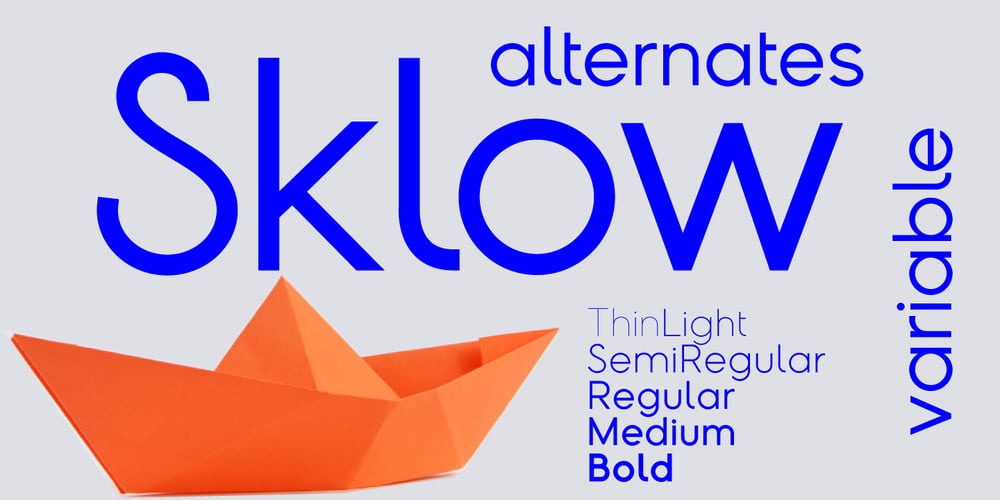
Sklow
Sklow font
Sklow Font Family was designed by Andrii Shevchyk and published by Andfonts. Sklow contains 6 styles and family package options. Elevate your designs with Sklow, a sleek and modern sans font designed to bring versatility to your creative projects. With a wide array of alternates, Sklow empowers you to craft unique logos that seamlessly blend standard characters with distinctive alternatives. Unleash your creativity and make a lasting impression with Sklow’s refined and customizable aesthetic. Explore the perfect fusion of modern simplicity and individuality—download Sklow and redefine your design possibilities today.